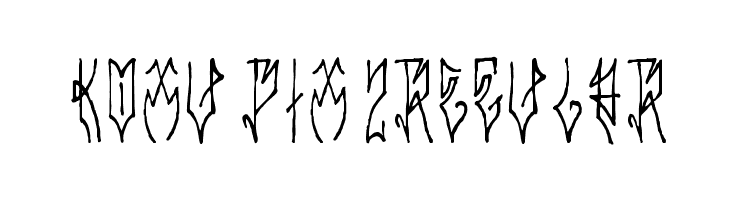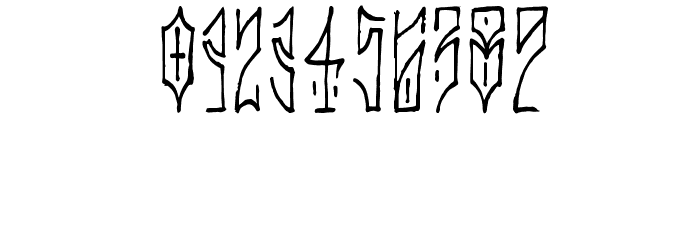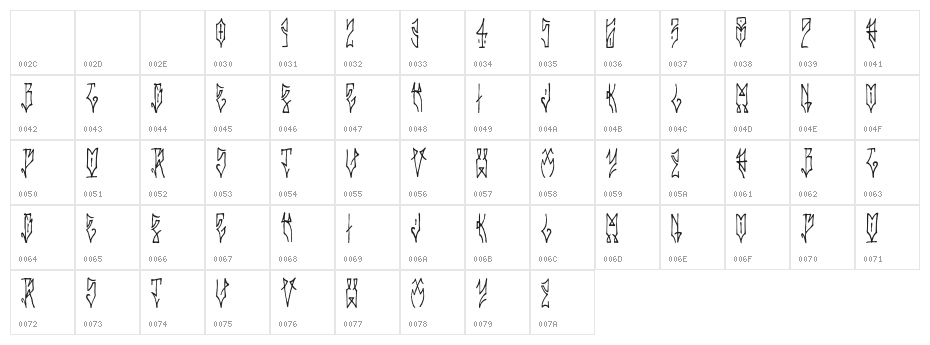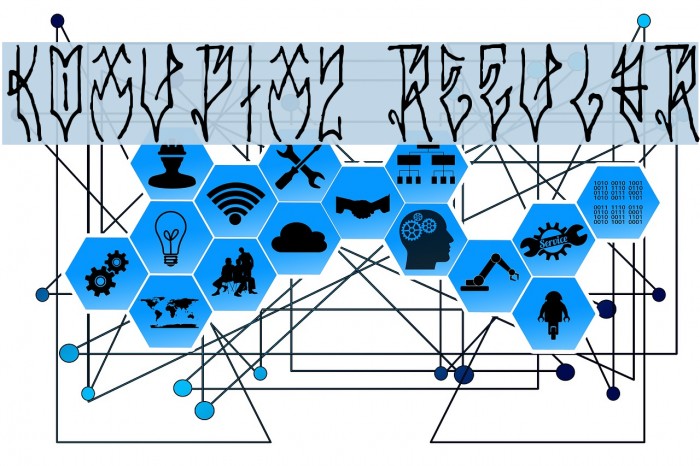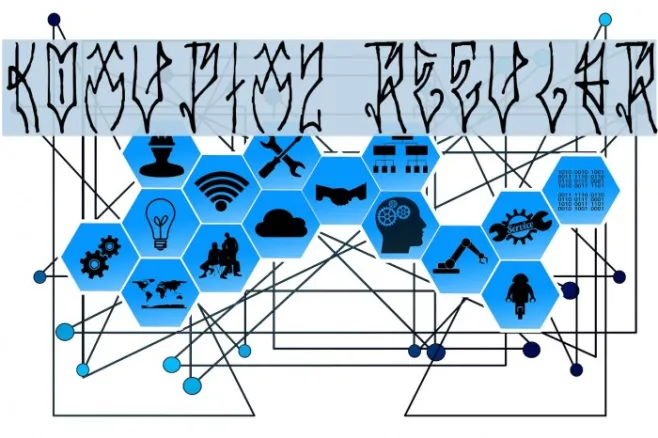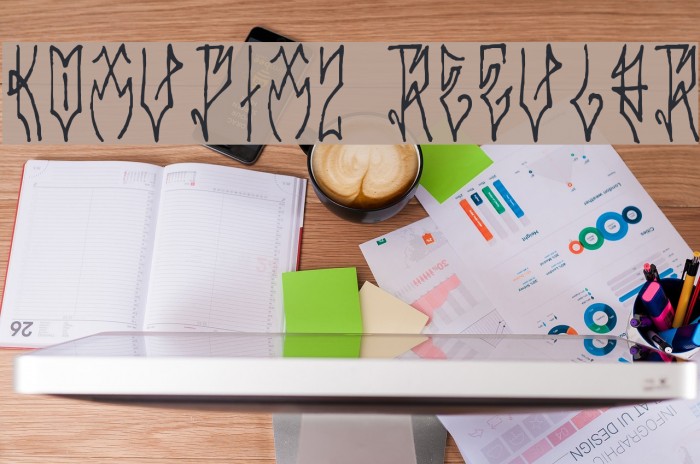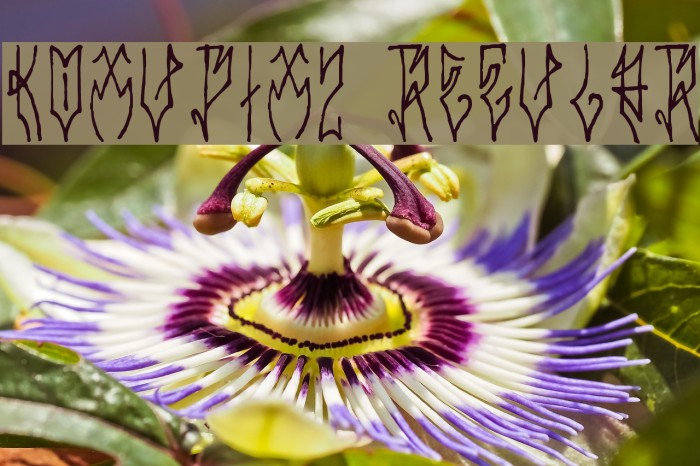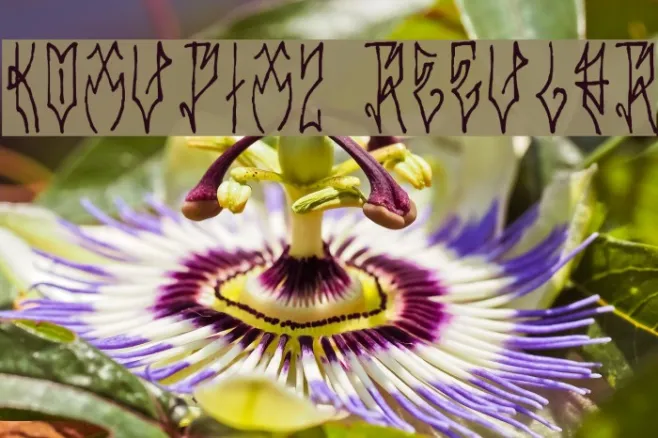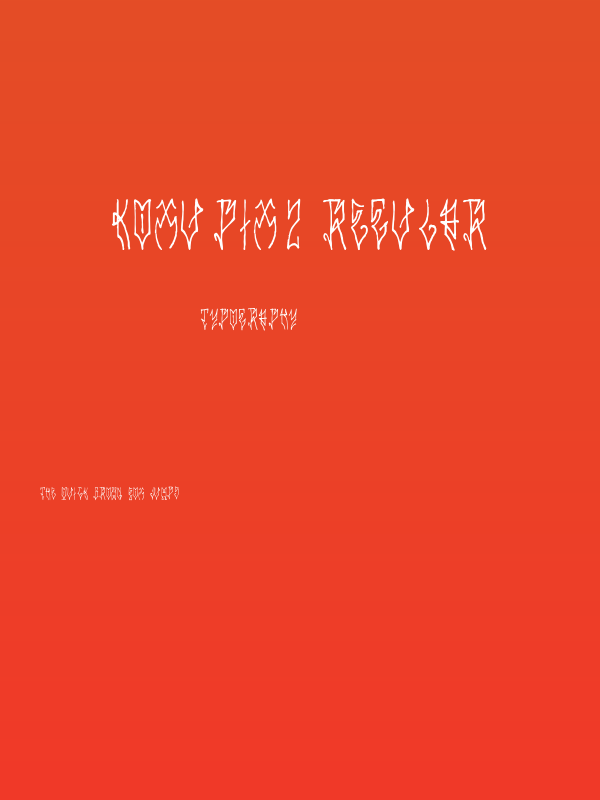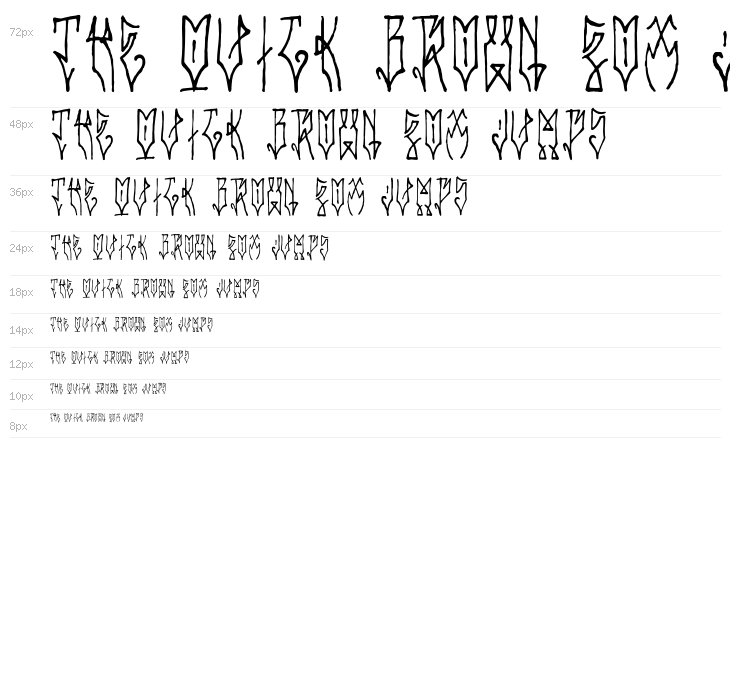
Koxu_Pix_2 Regular Font
Koxu_Pix_2 Regular Description
This font features a highly decorative and intricate design, characterized by sharp, angular lines and a gothic-inspired aesthetic. Each character is uniquely crafted with a sense of mystery and complexity, making it stand out with its bold and artistic flair. The letters are tall and narrow, with exaggerated serifs and pointed edges that give them a dramatic and edgy appearance. The numbers and special characters follow the same stylistic approach, ensuring a cohesive look throughout the set. This font is perfect for projects that require a touch of fantasy or a medieval theme.
| Overall Style | Gothic, Decorative |
| Use Case | Logos, Titles, Posters |
| Proposed Projects | Ideal for fantasy book covers, gothic-themed posters, video game titles, and artistic logos. |